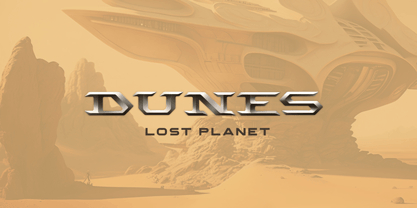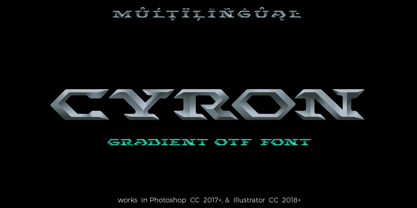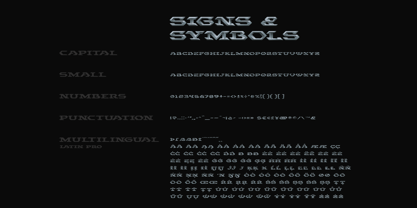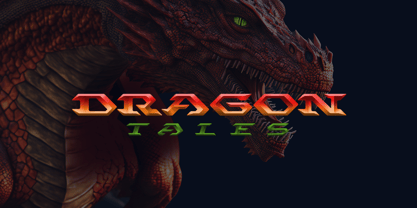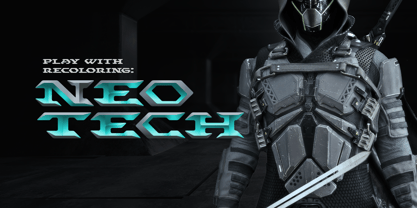
Cyron Steel
by Sentavio
The Cyron Steel Font Family was designed by Dmytro Poliakh and published by Sentavio. Cyron Steel contains 2 styles and family package options.
CyronSteel is an unique modern vintage color gradient vector font you may use in your projects just typing a text in Illustrator or Photoshop.
CyronSteel is Color 3D version of our Cyron font (please find it in our shop).
CyronSteel is unique serif font combines hi-tech cyberpunk and futuristic atmosphere and classic serif's style. There are Uppercase and Lowercase letters done the way they ideally connect with each other.
Use it in your projects in such areas as robots & androids, cyberpunk, hi-tech, future, virtual reality, space, army, games and many others.